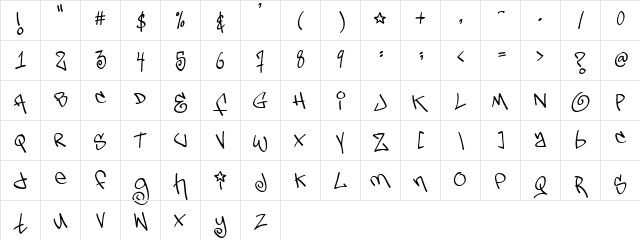
TagsXtreme2 Regular Free Font
TagsXtreme2 Regular
Design Context for TagsXtreme2
TagsXtreme2 is a composed and adaptable typeface that performs quietly and consistently across a wide range of design contexts.